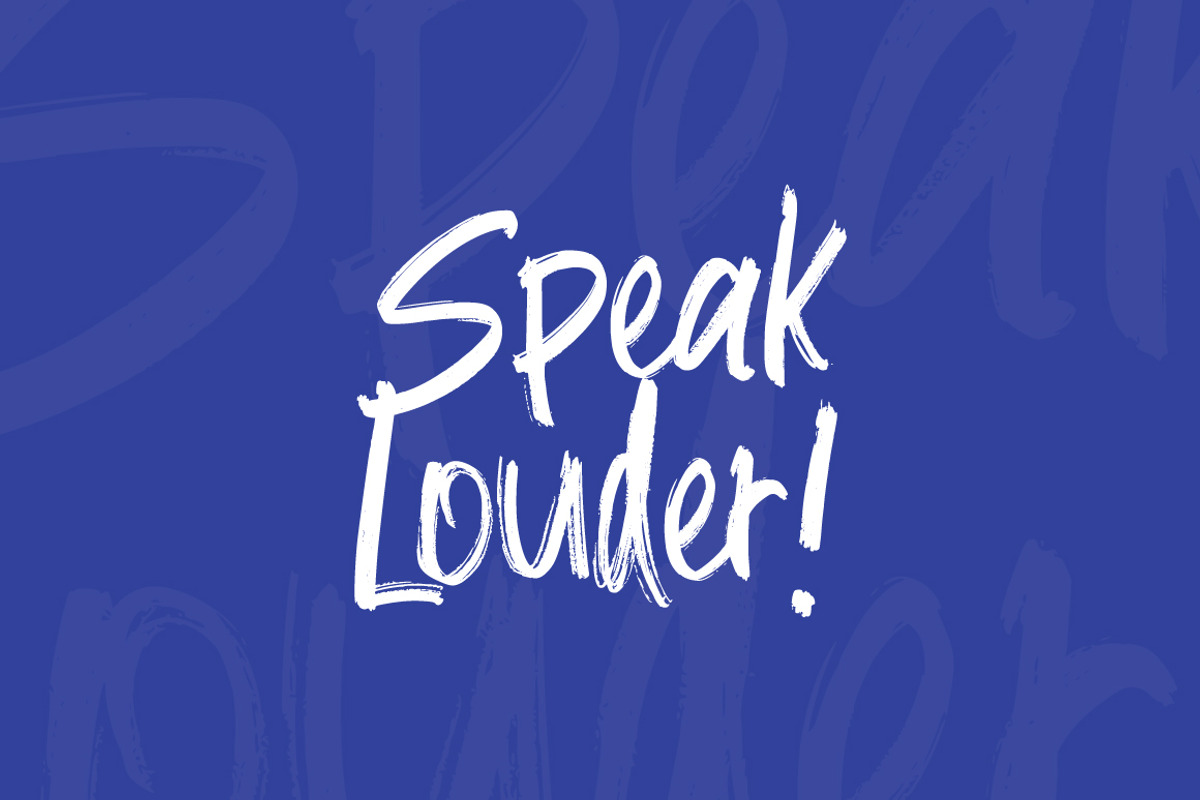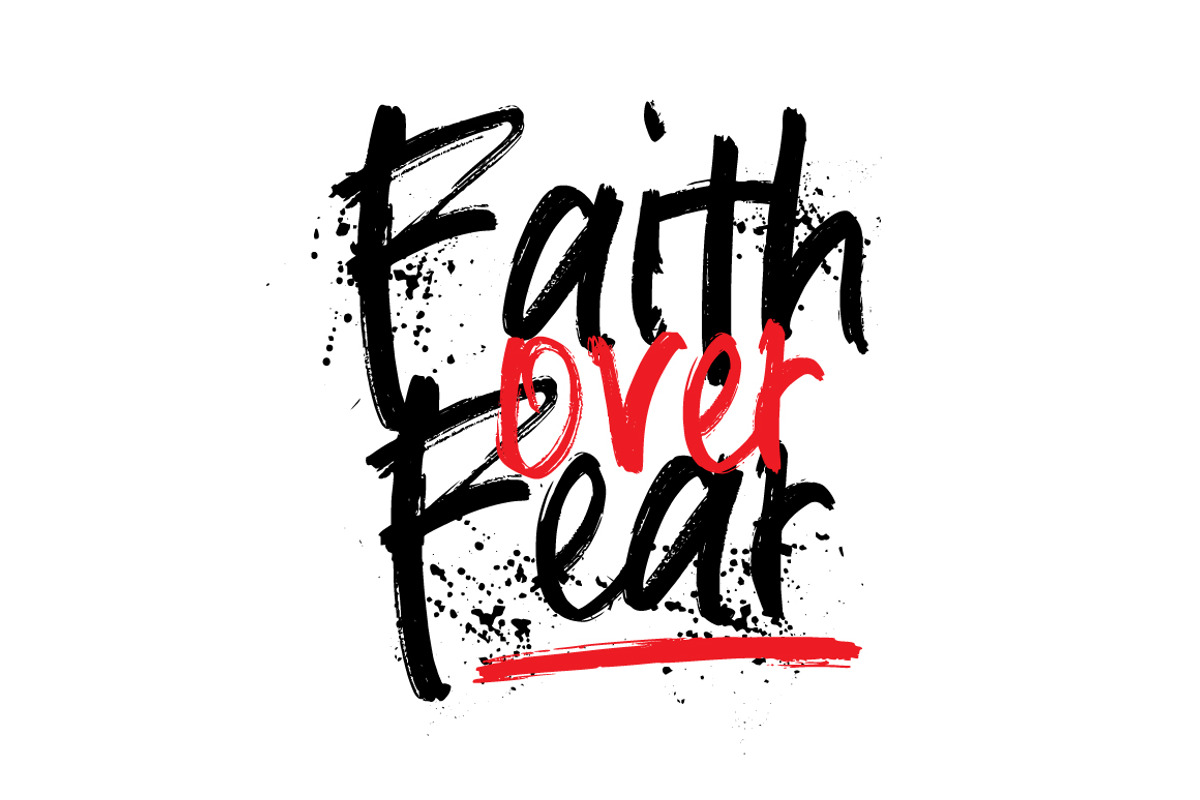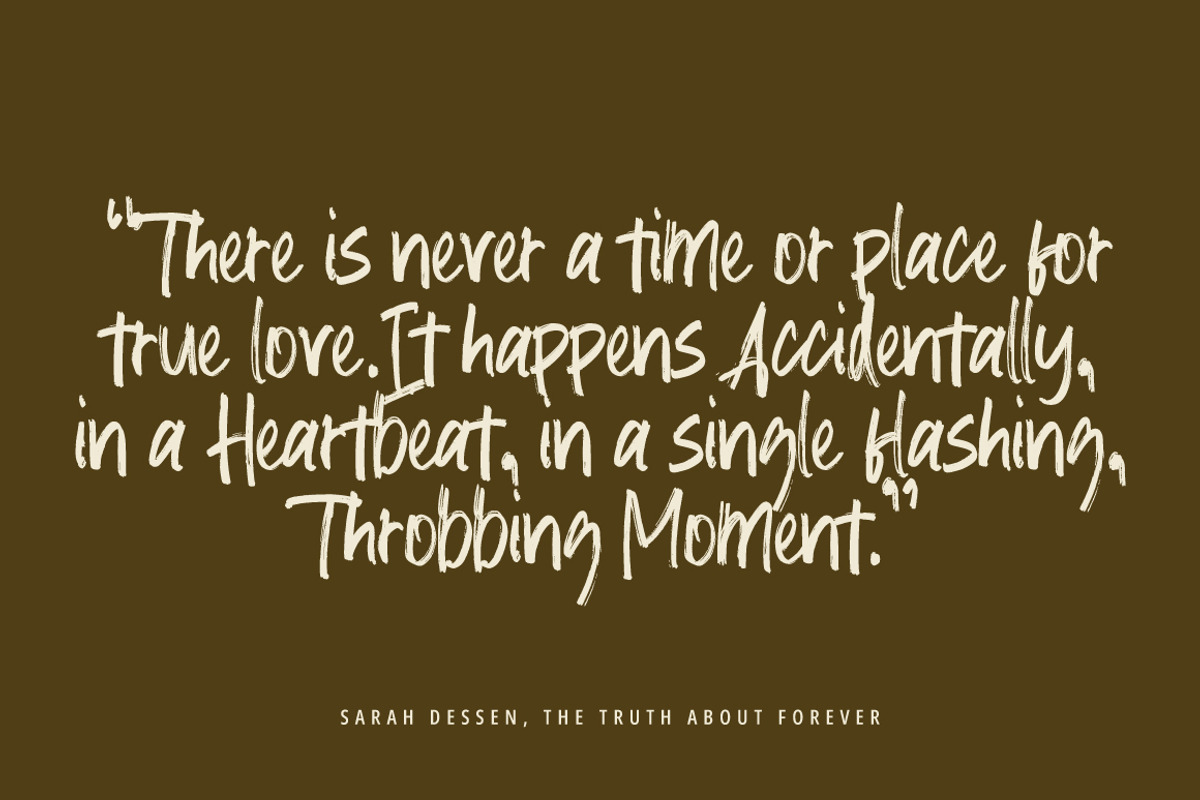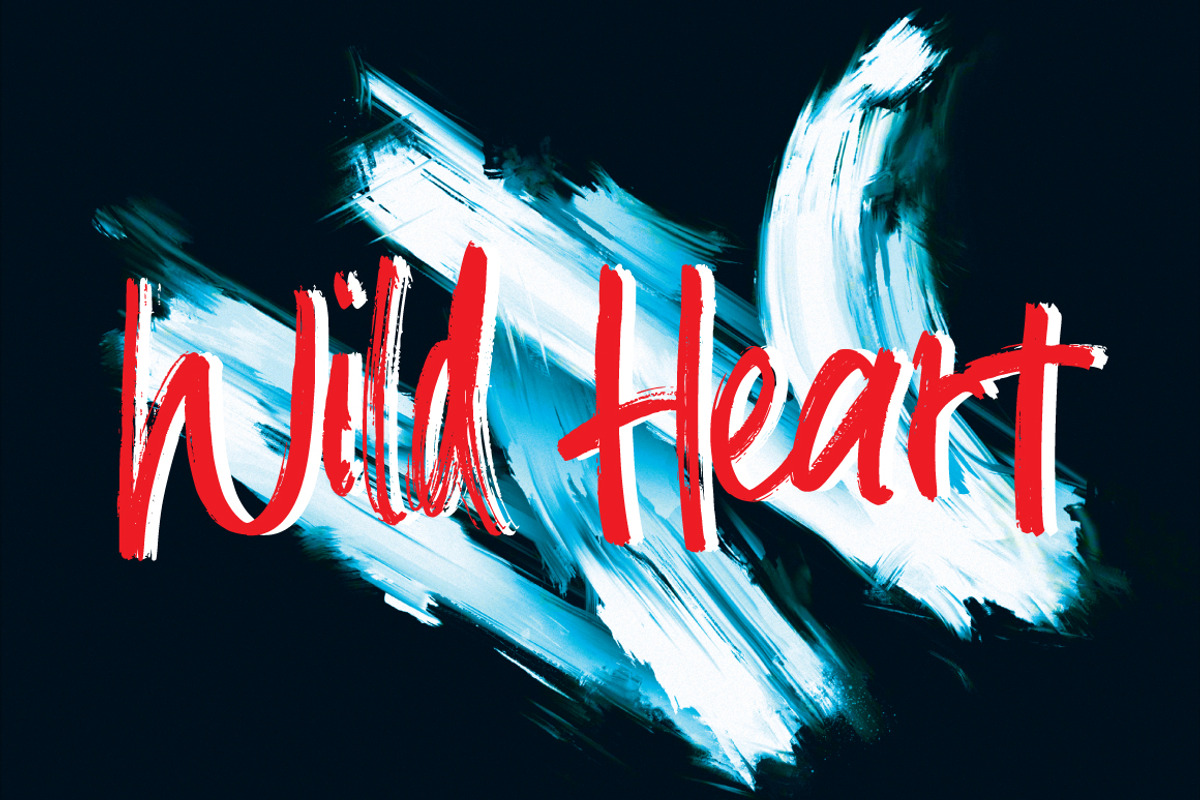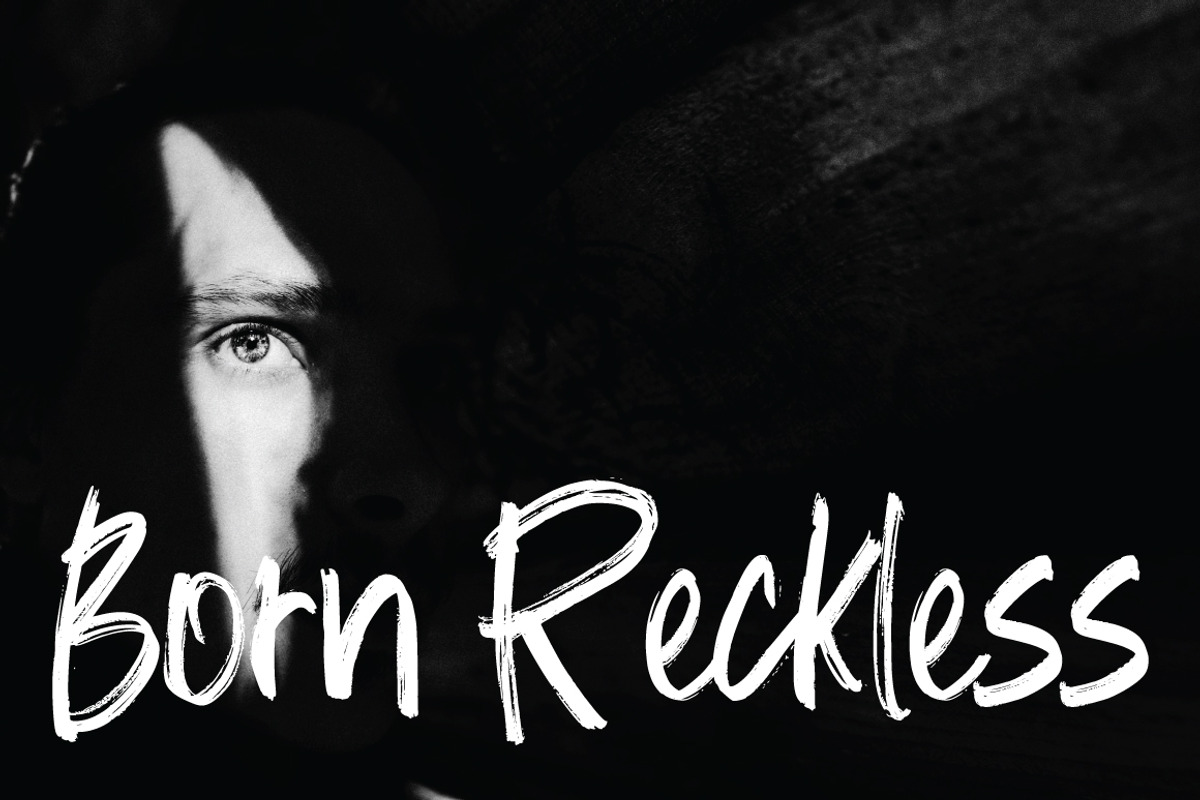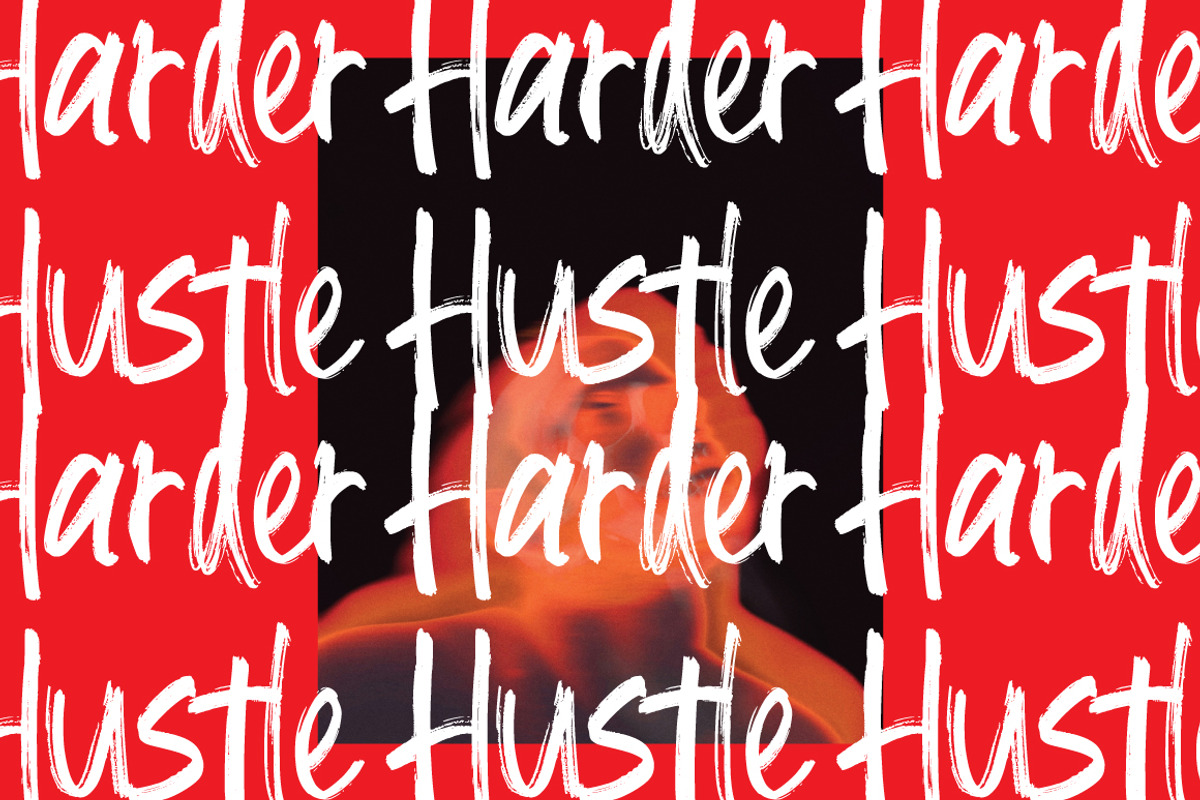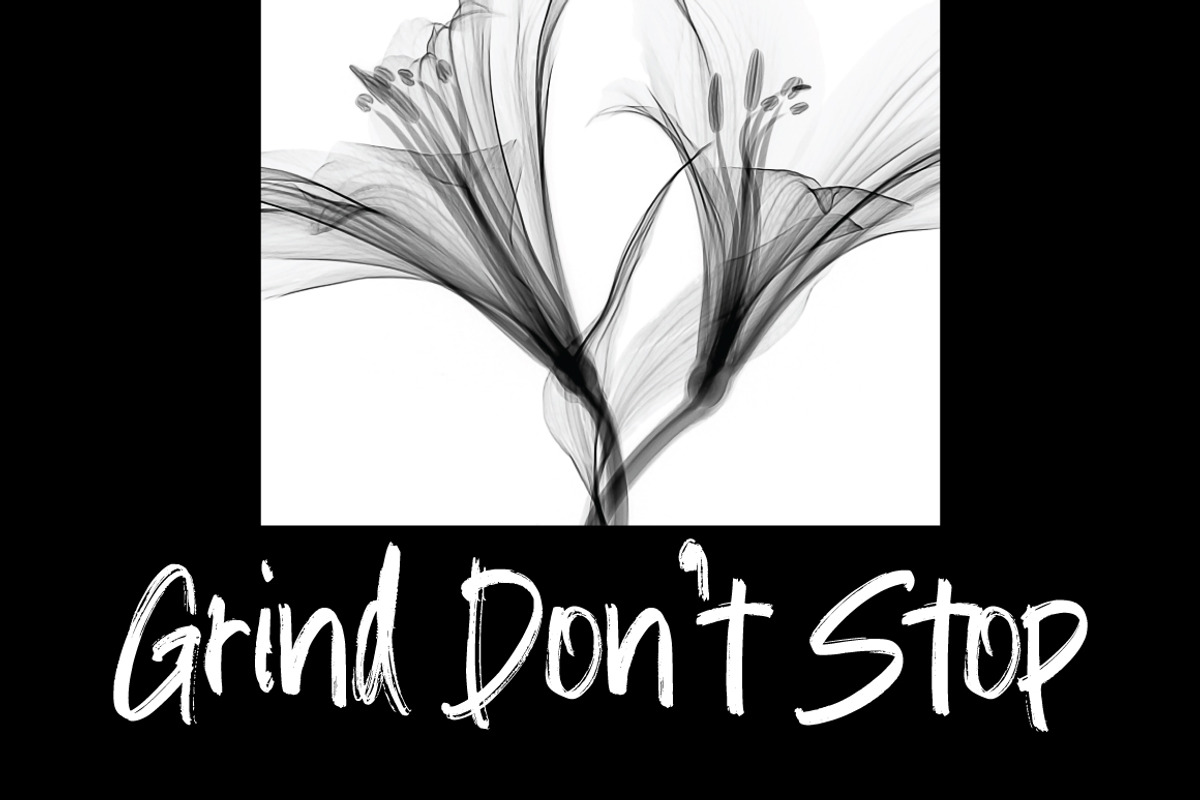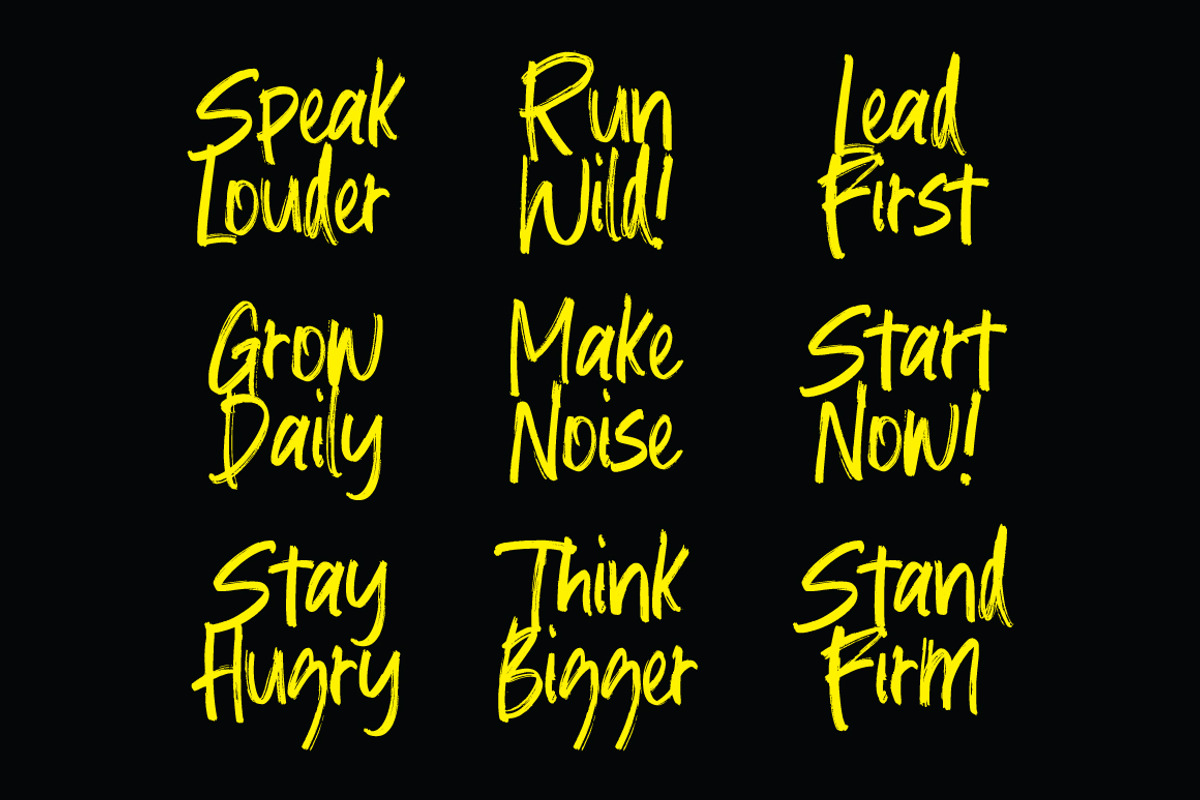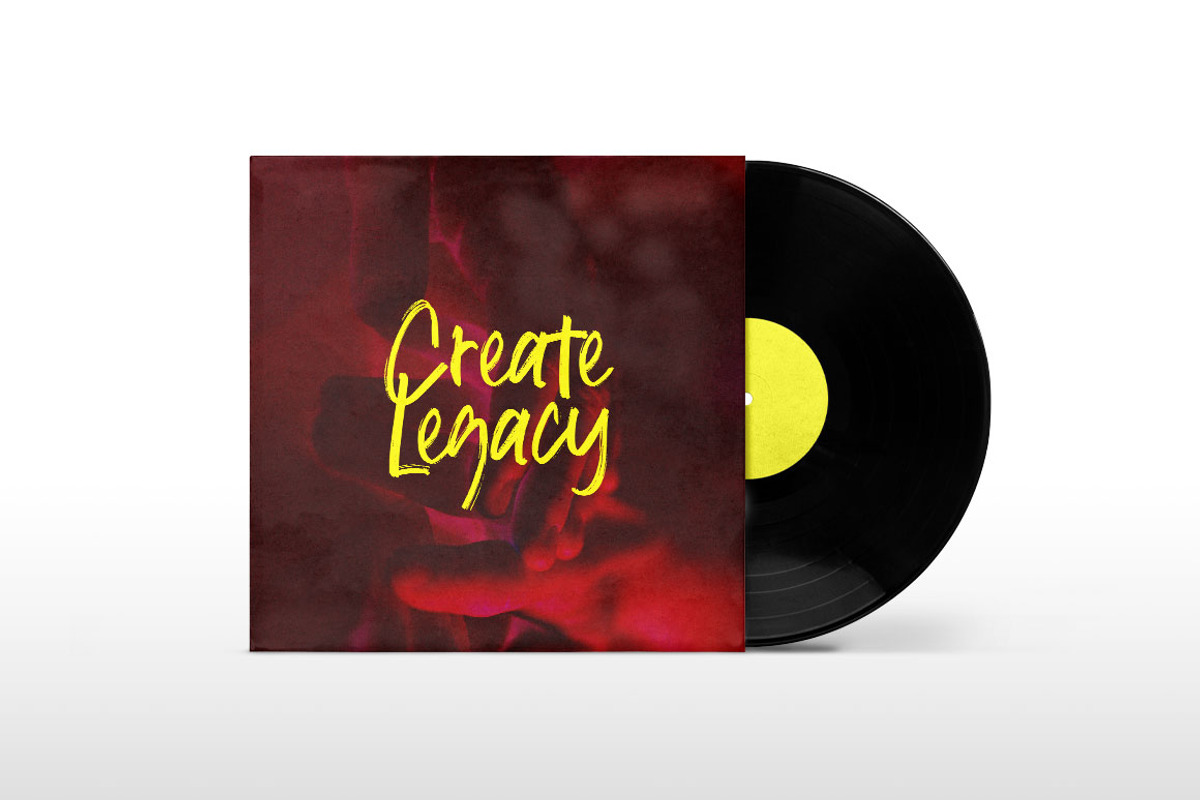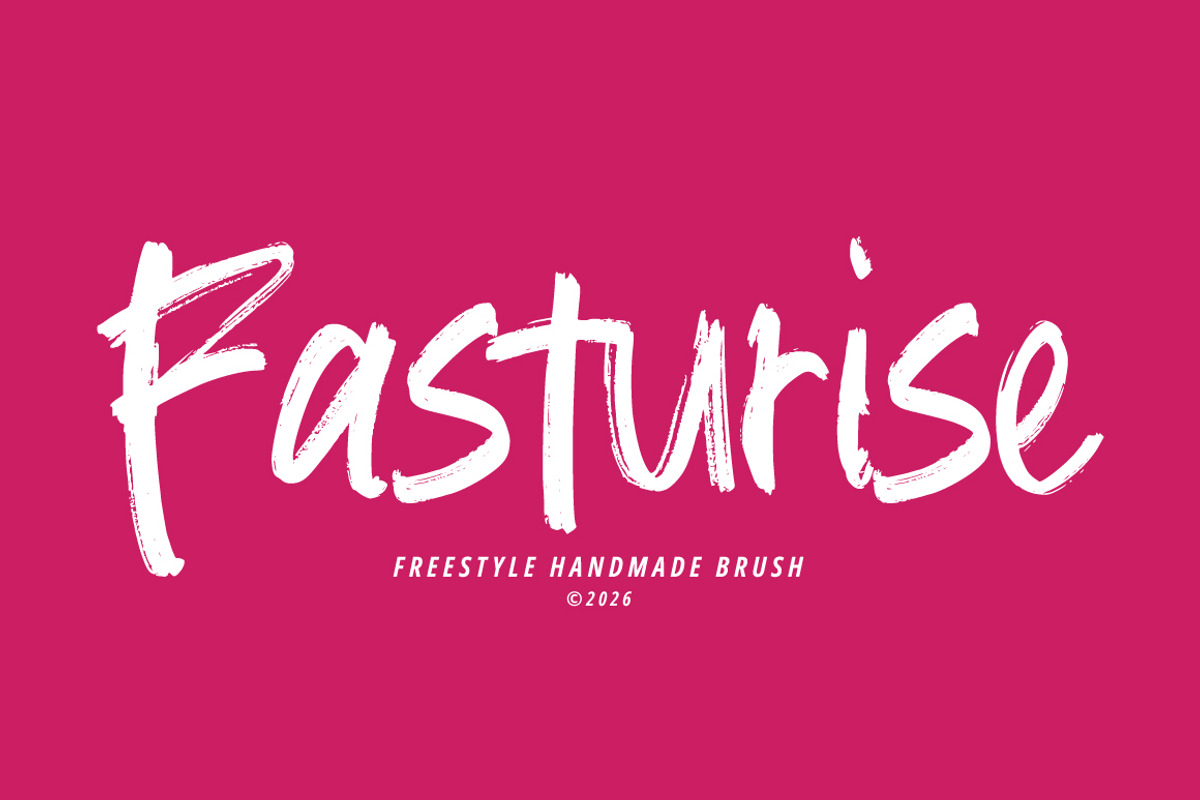
Fasturise - Freestyle Brush
Bring Your Designs to Life with Bold, Direct Energy
Introducing Fasturise Brush, a handcrafted brush-style font designed to infuse your creative projects with strong character, an authentic raw feel, and street-style confidence. Featuring dynamic, bold strokes and a striking dry-brush texture, this font delivers a natural, handcrafted aesthetic that commands immediate attention.
Fasturise Brush Features :
Uppercase & Lowercase International Languange & Symbols Support Punctuation & Number PUA Unicode Range Standard Ligatures Discretionary Ligatures Stylistic Alternates Stylistic Set.